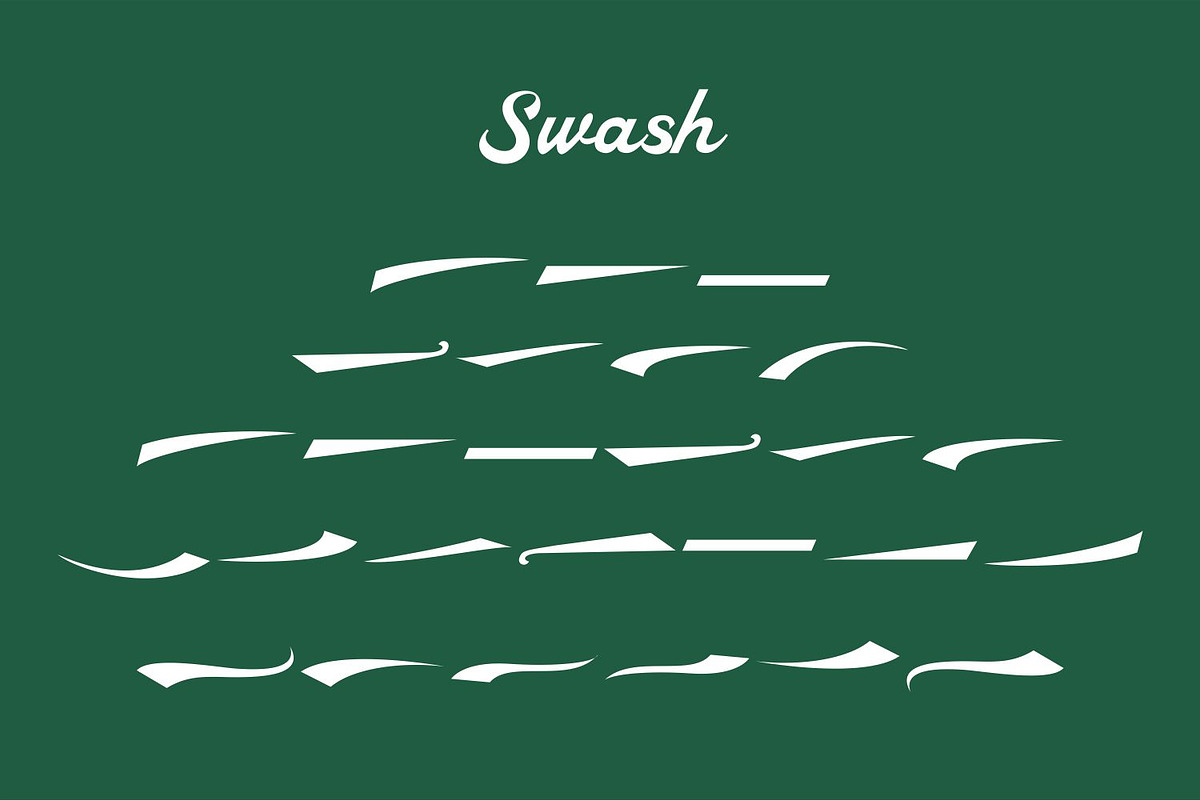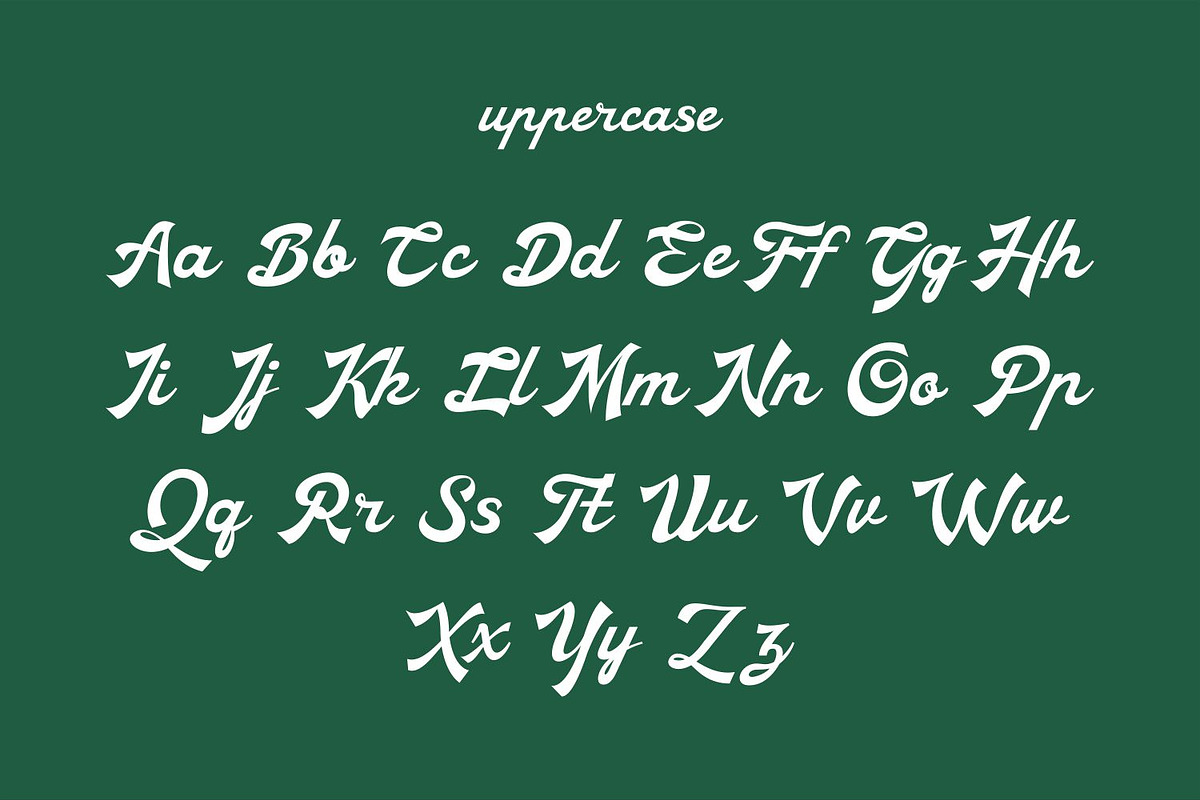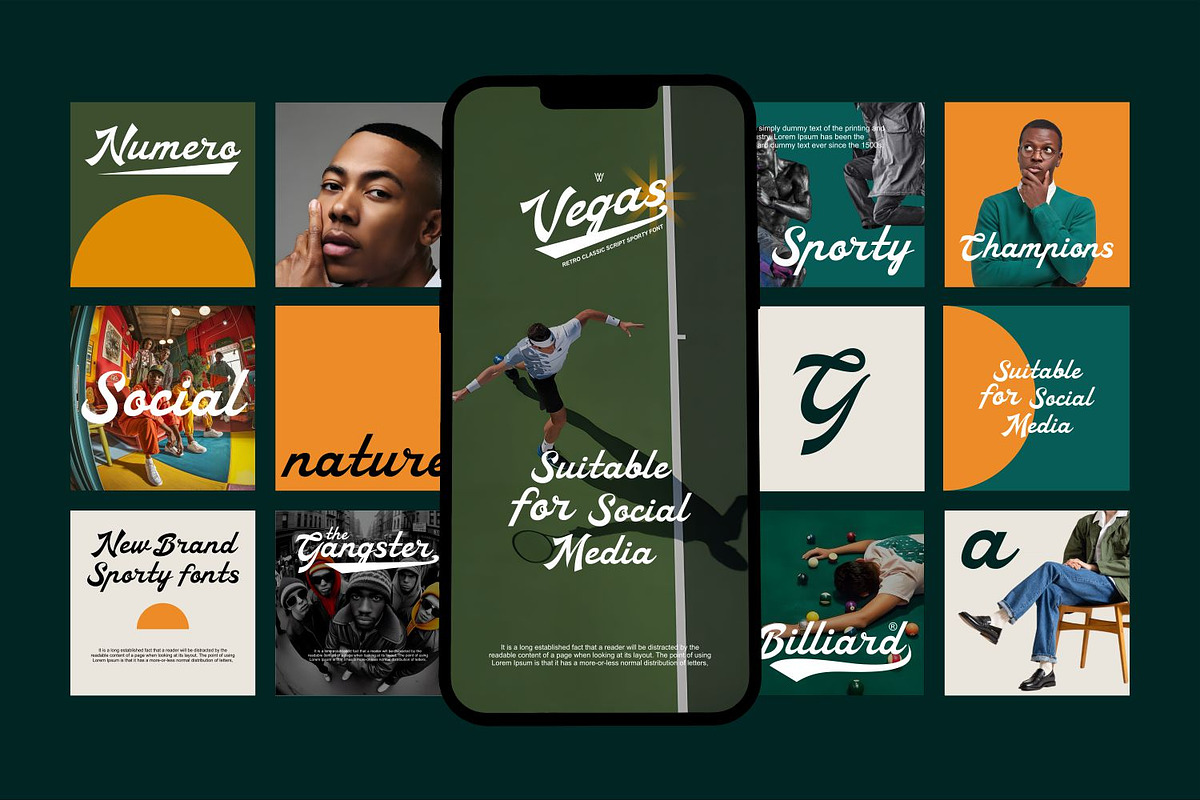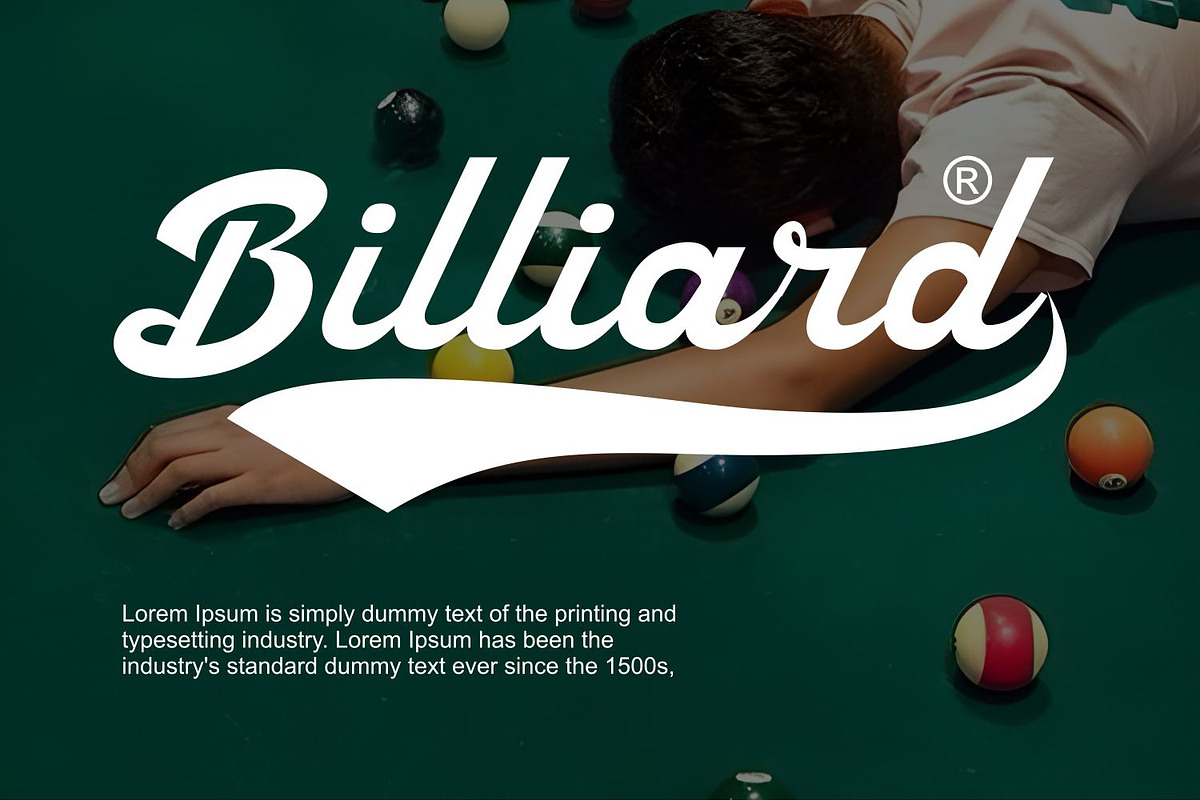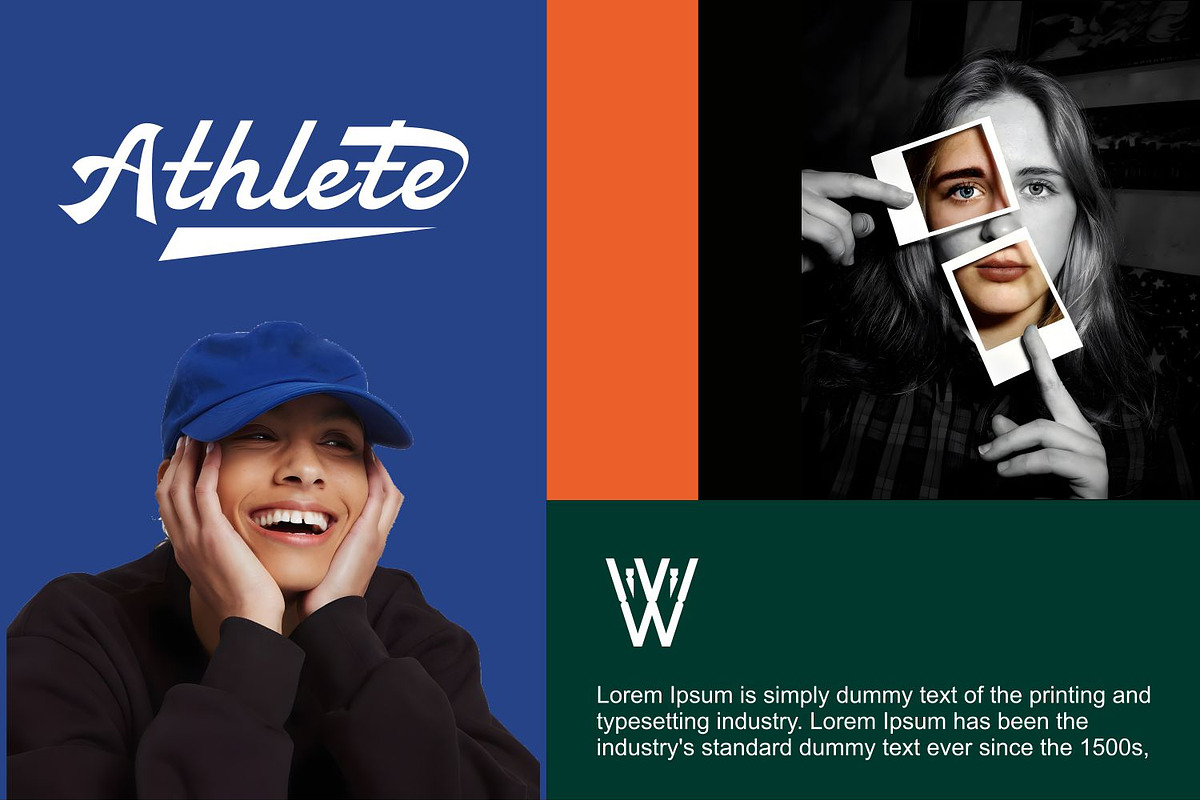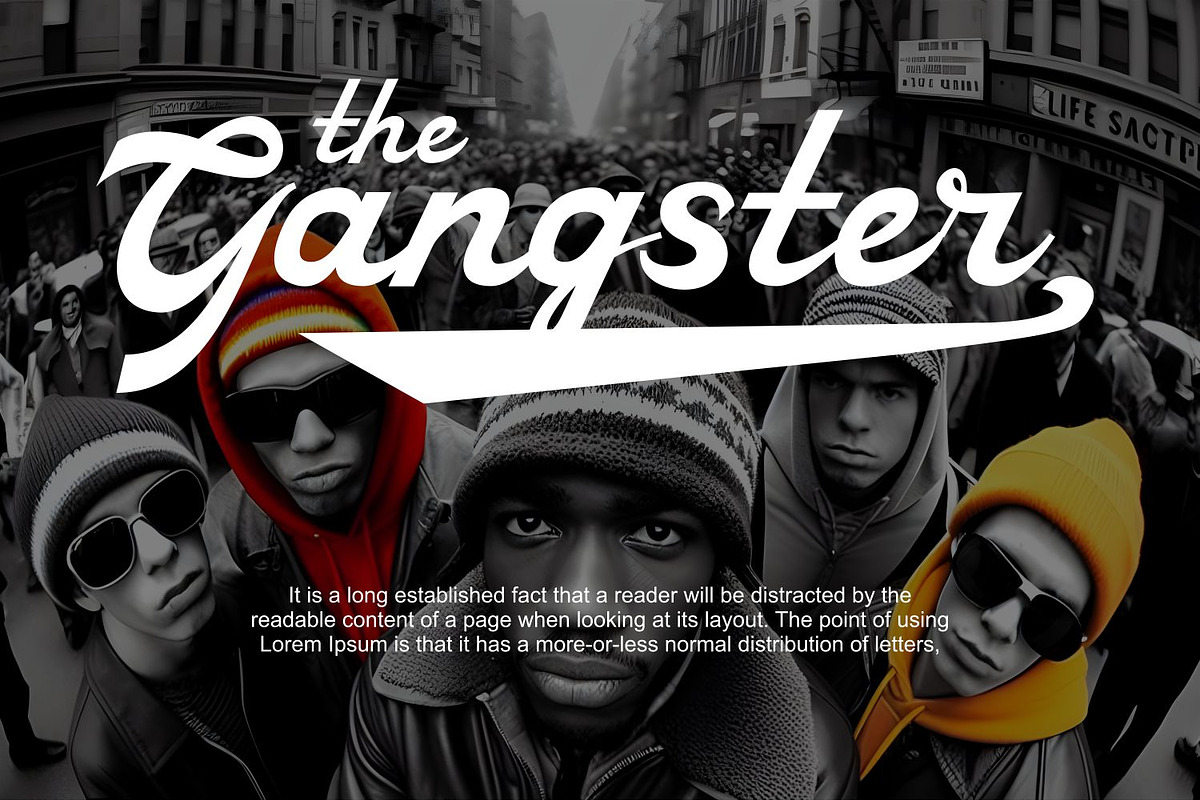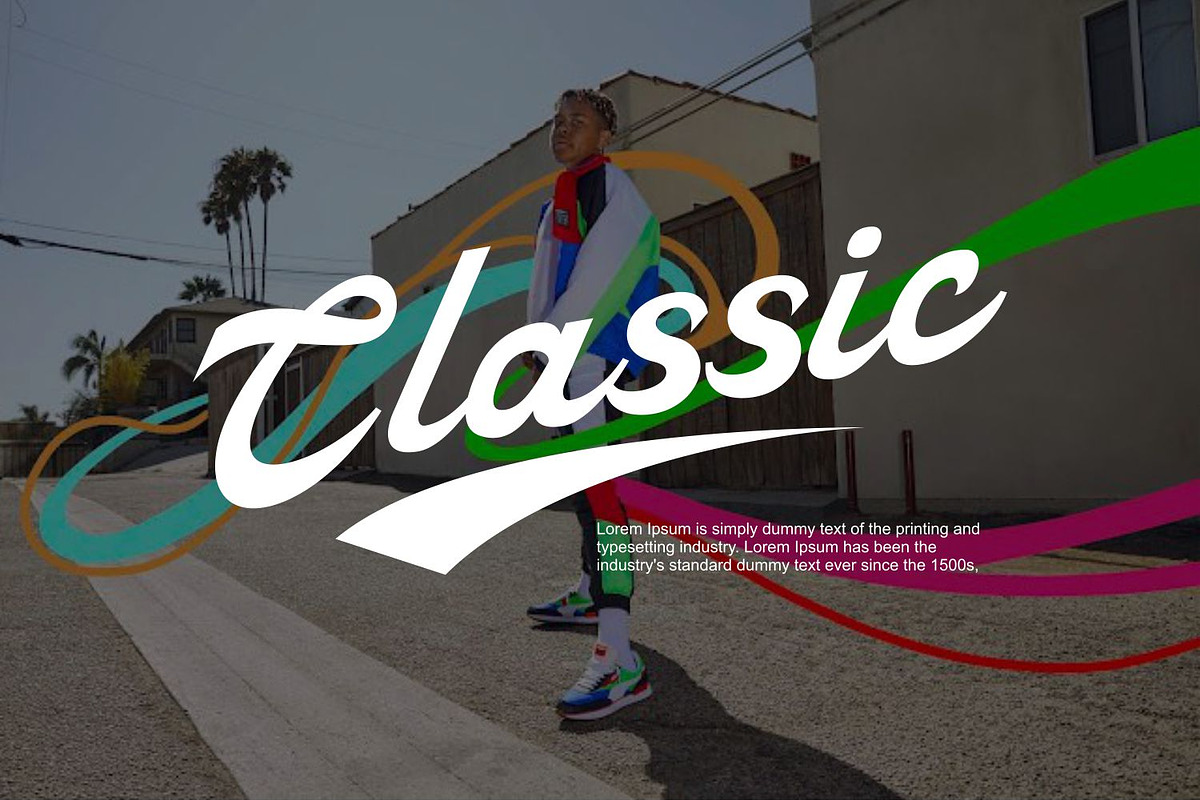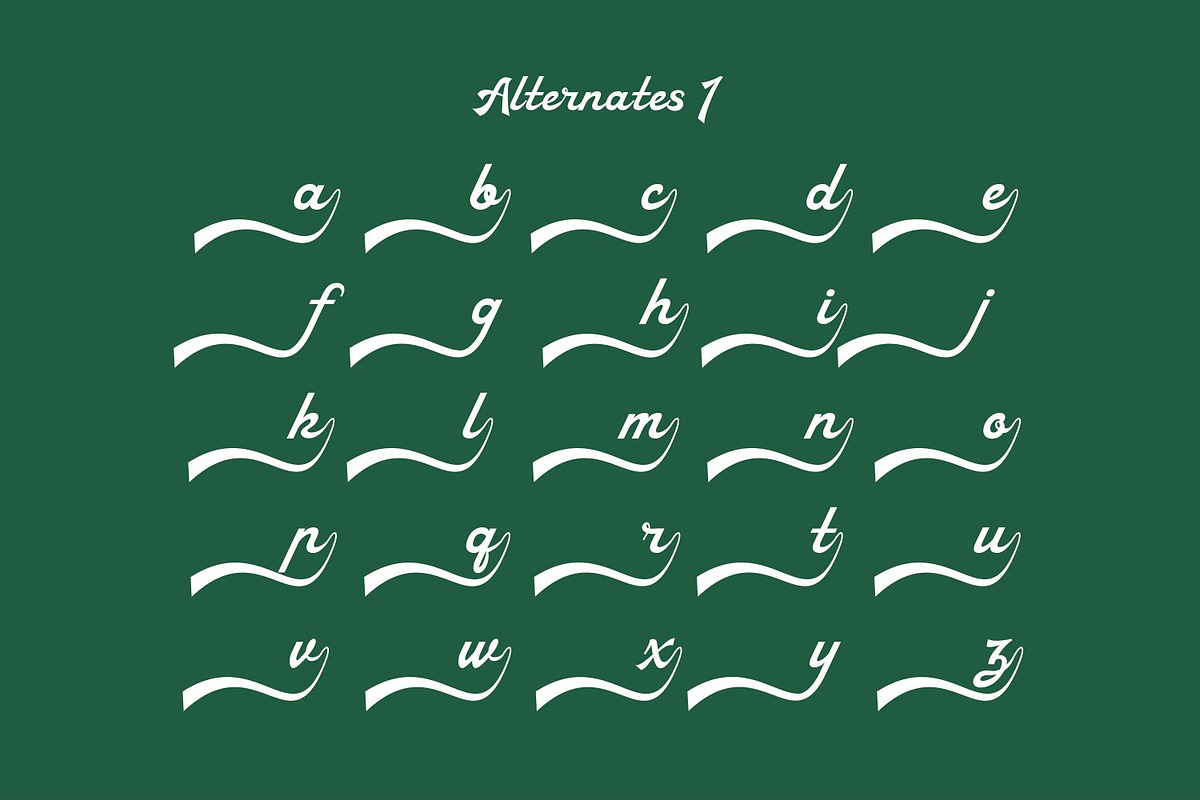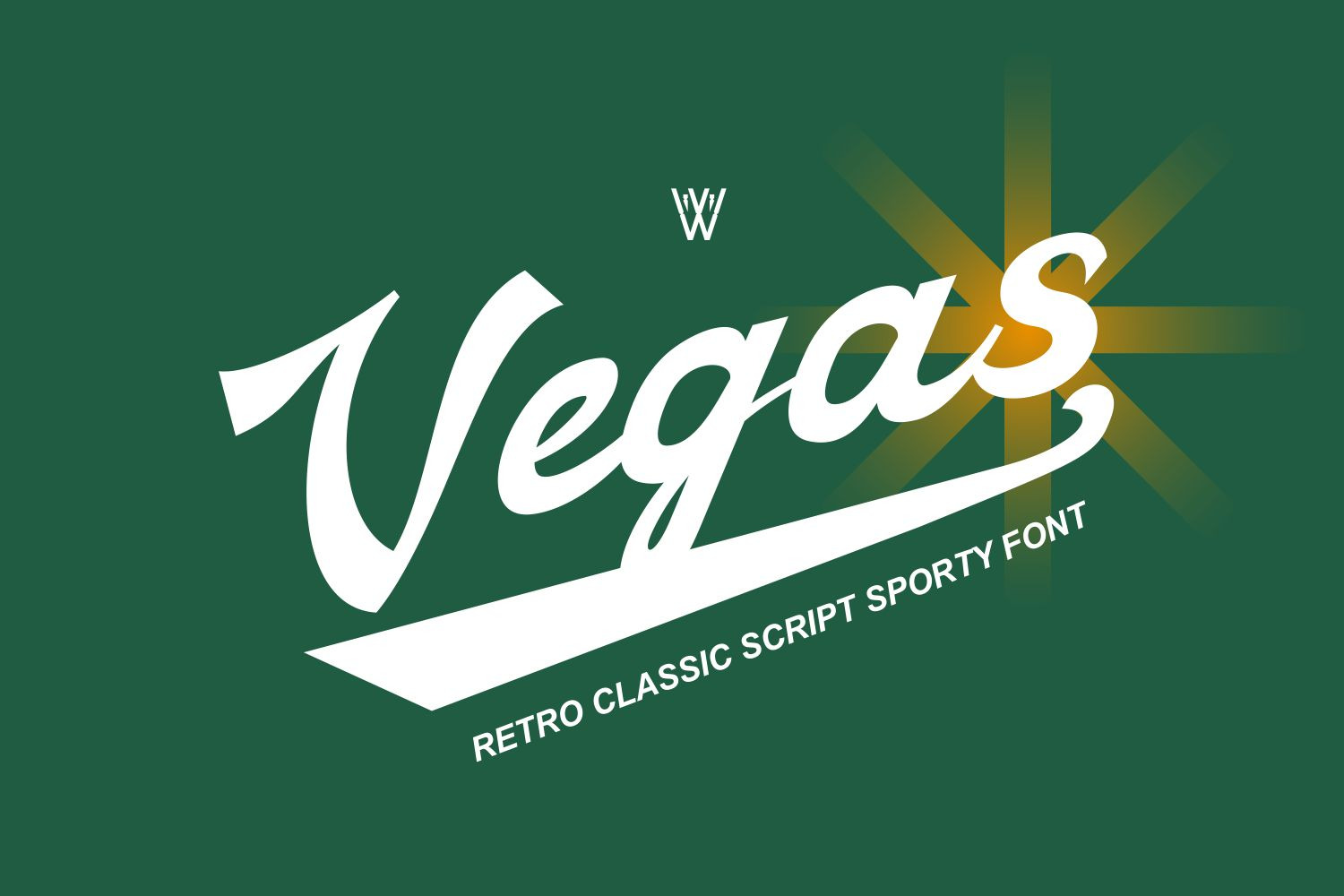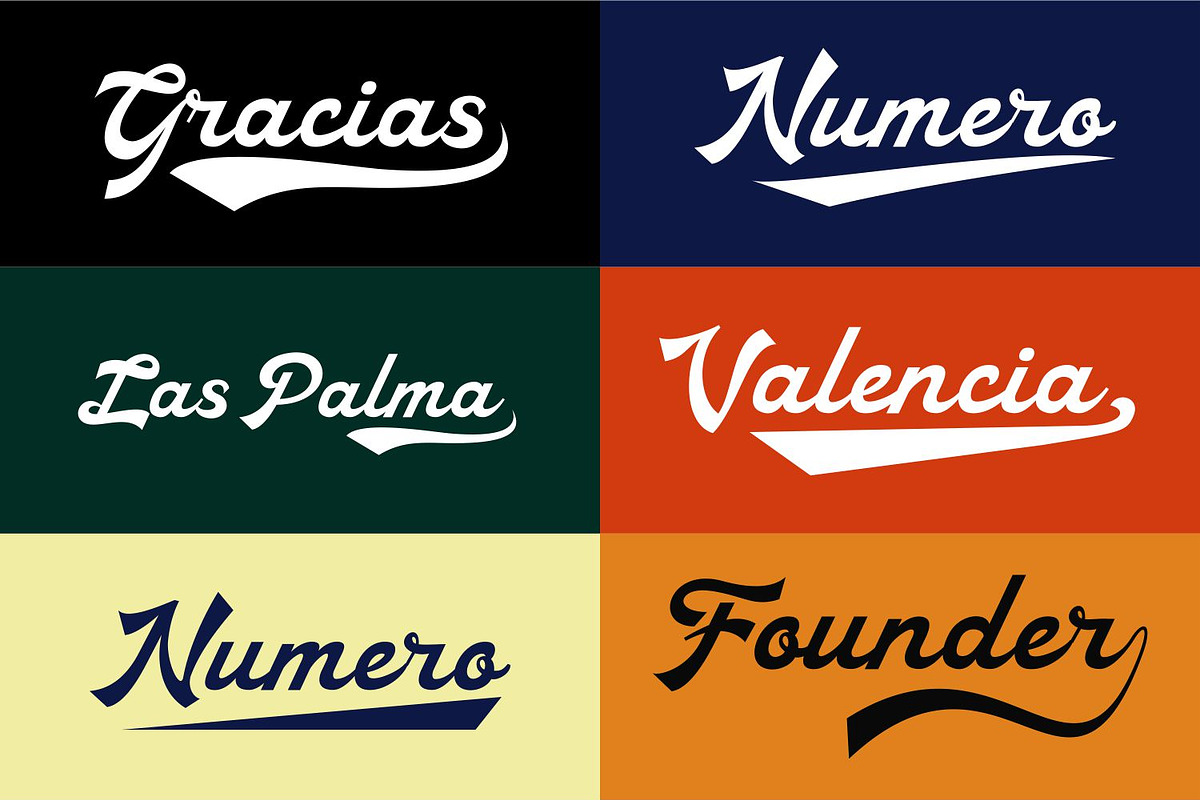
Vegas Vintage Retro Script Font
Discover Vegas Vintage, a dynamic and energetic retro script font designed to bring a bold, sporty, and nostalgic touch to your projects. Inspired by vintage signage, athletic branding, and classic Americana, Vegas Vintage combines fluid script strokes with a strong retro appeal, making it perfect for sports-themed graphics, logo design, apparel branding, and nostalgic event materials.
This versatile typeface is crafted for seamless integration across platforms like Cricut, Procreate, and Canva, ensuring effortless use in both digital and print designs. Whether you're creating retro-inspired sportswear, dynamic social media content, classic logos, or stylish event branding, Vegas Vintage provides a unique and powerful visual impact.
👉 Retro Script Style: A sporty, classic look reminiscent of vintage signage and old-school branding. 👉 Fully Editable & Compatible: Works seamlessly with Cricut, Procreate, Canva, Adobe, and other popular design tools. 👉 Perfect for Branding & Apparel: Ideal for sports team logos, merchandise, vintage posters, and bold typography projects. 👉 Complete Character Set: Includes uppercase and lowercase letters, punctuation, numbers, and alternates.
Ideal For:
👉 Sports Branding & Athletic Logos: Elevate team branding with a strong, classic script style. 👉 Event & Social Media Graphics: Stand out with bold, eye-catching typography for events, promotions, and marketing. 👉 Classic Lettering & Signage: Great for restaurant signs, vintage-inspired labels, and nostalgic ads.
✅ Multilingual Support ✅ Uppercase Alphabet A-Z ✅ Lowercase Alphabet a-z ✅ Alternate Characters & Ligatures ✅ Numbers 0-9 & Punctuation
Add Vegas Vintage to your font collection and create powerful, nostalgic, and bold designs with a retro-sporty edge. Whether for branding or digital design, this font is your go-to choice for a vibrant, energetic, and timeless look.